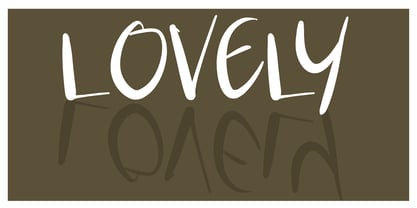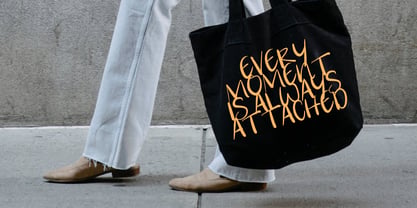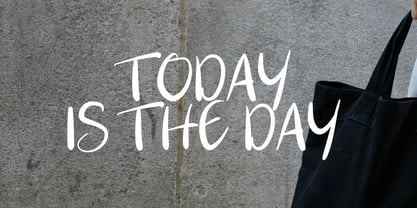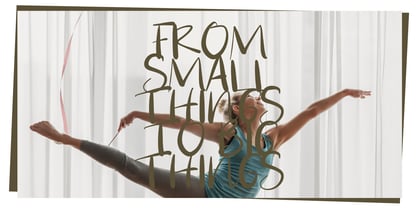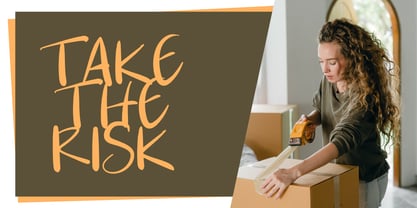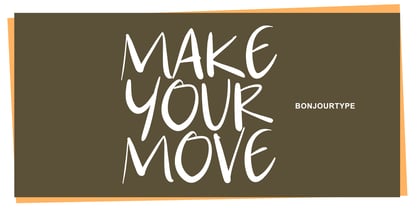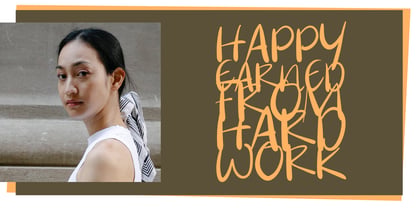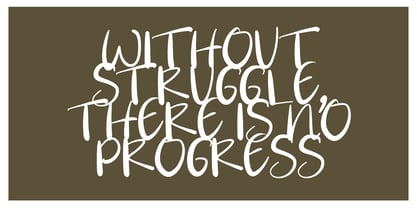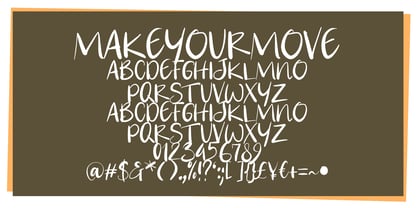
Make Your Move
La familia tipográfica Make Your Move fue diseñada por Rachma y publicada por BonjourType. Make Your Move contiene 1 estilos. Más información sobre esta familia
Introducing MAKEYOURMOVE, a playful handwritten font with a natural marker-style touch. Featuring tall, organic letterforms and expressive monoline strokes, this font creates a casual, artistic, and authentic handwritten feel.
Perfect for branding, social media, posters, packaging, quotes, photography, fashion, and lifestyle designs, MAKEYOURMOVE brings a fresh handcrafted personality to any project. Its imperfect and spontaneous look makes your typography feel more natural, creative, and eye-catching.
Whether used for bold headlines or creative display text, MAKEYOURMOVE adds charm, energy, and modern handwritten character to your designs.